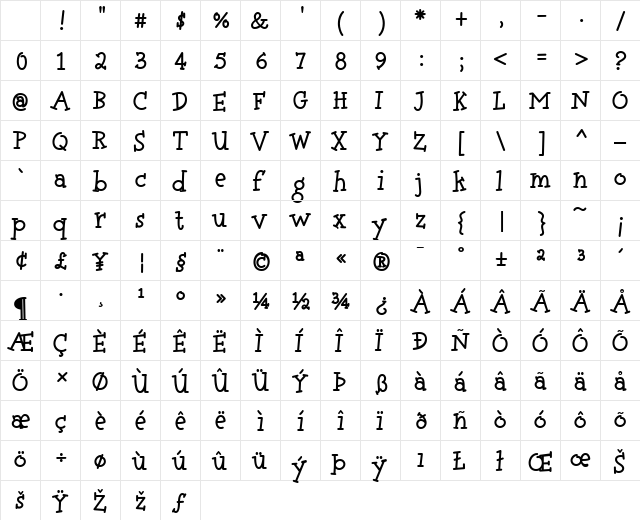
Complete Tweedledee Bold Regular glyph index. Displaying only characters natively supported by Tweedledee Bold Regular font.
Tweedledee Bold is a composed and adaptable typeface that performs quietly and consistently across a wide range of design contexts. Its bold stroke weight gives it real presence on the page.